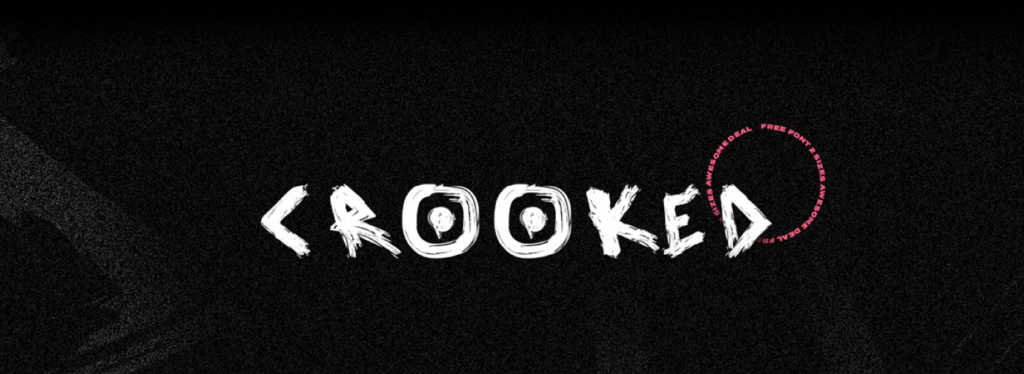
CROOKED is a new font created by Luis H. J. Rapp. A font created with a rough brush and a lot of free time. Styled based on a crooked y-axis the whole font is tilted upwards to the left.